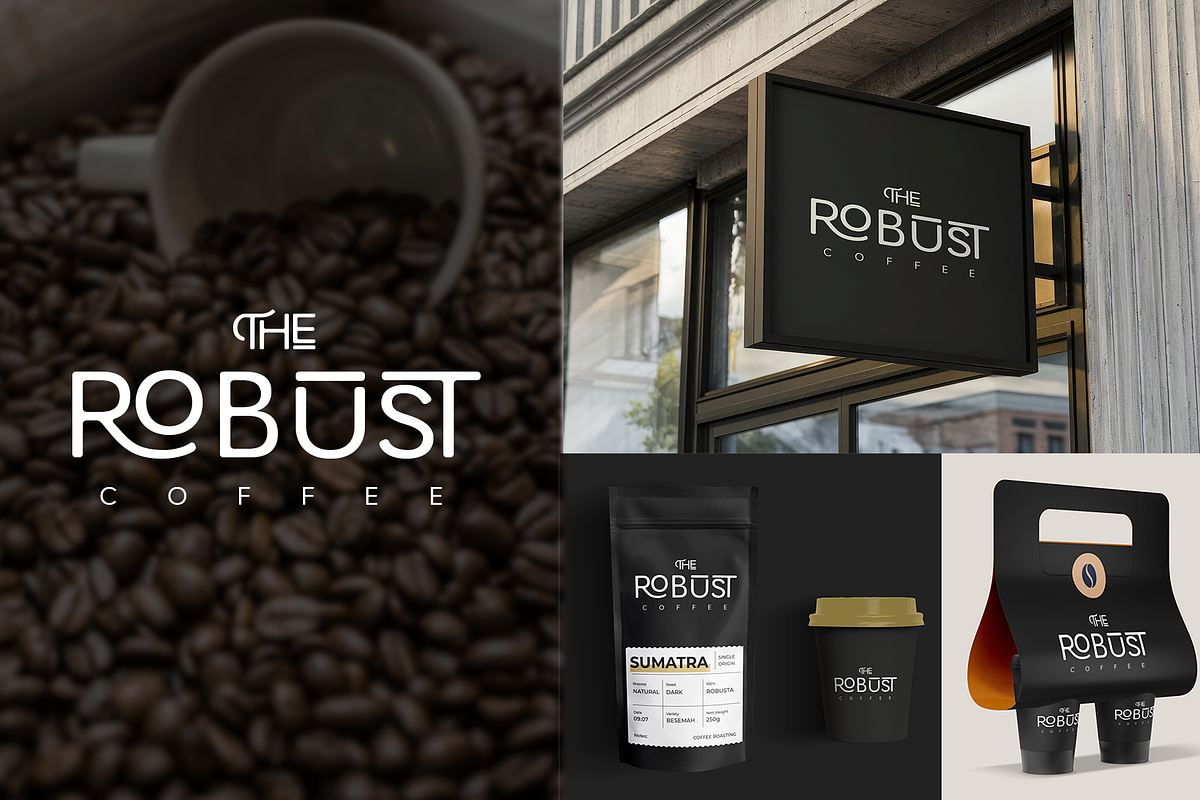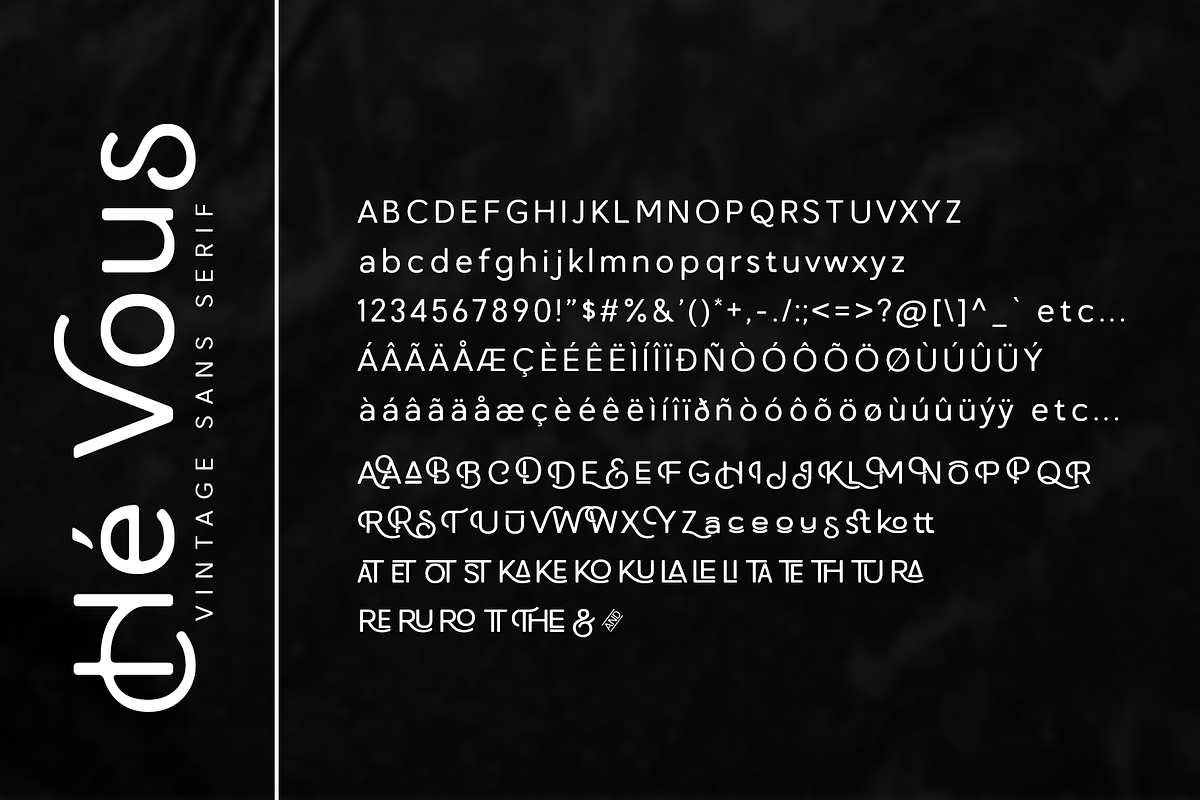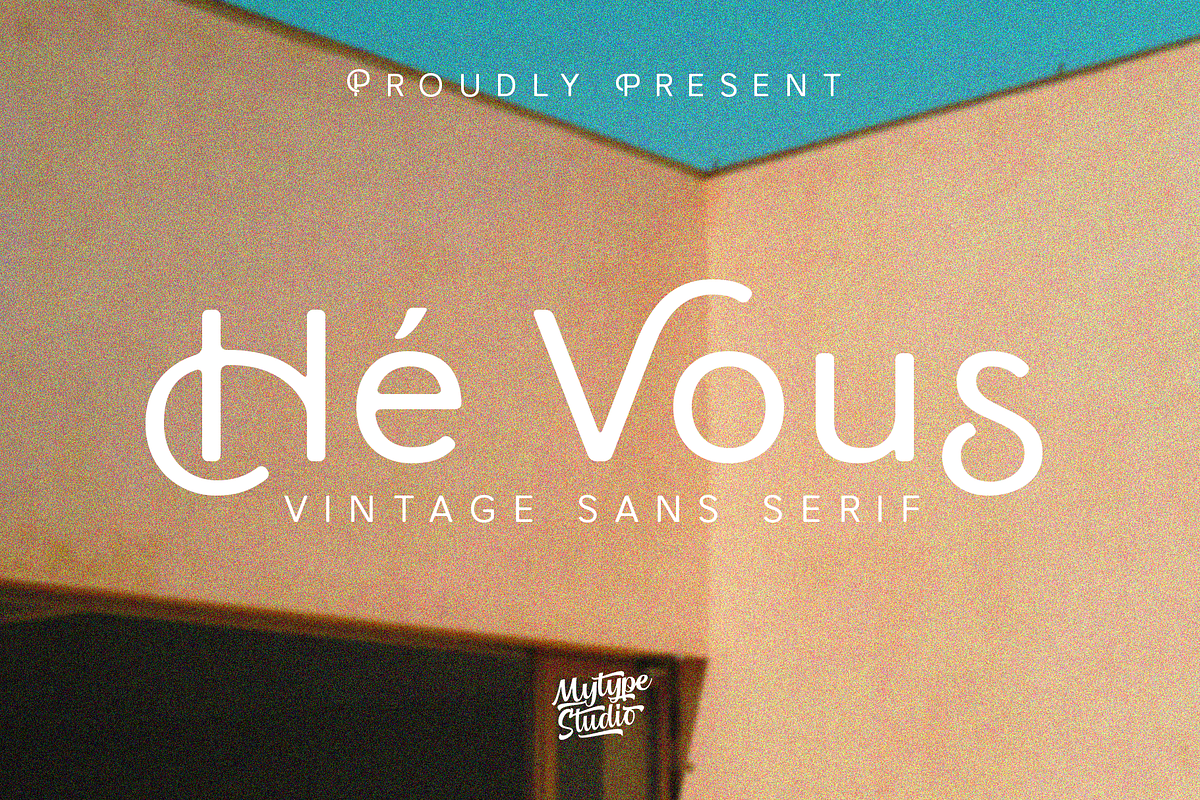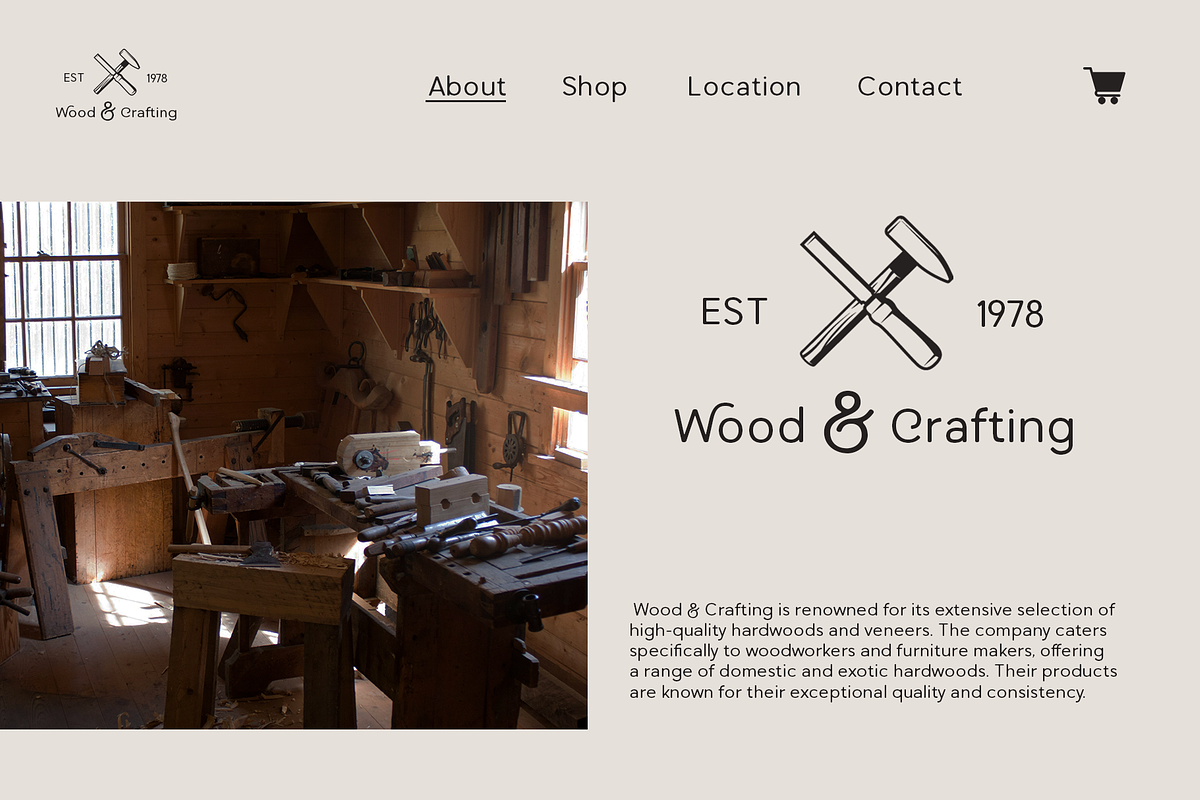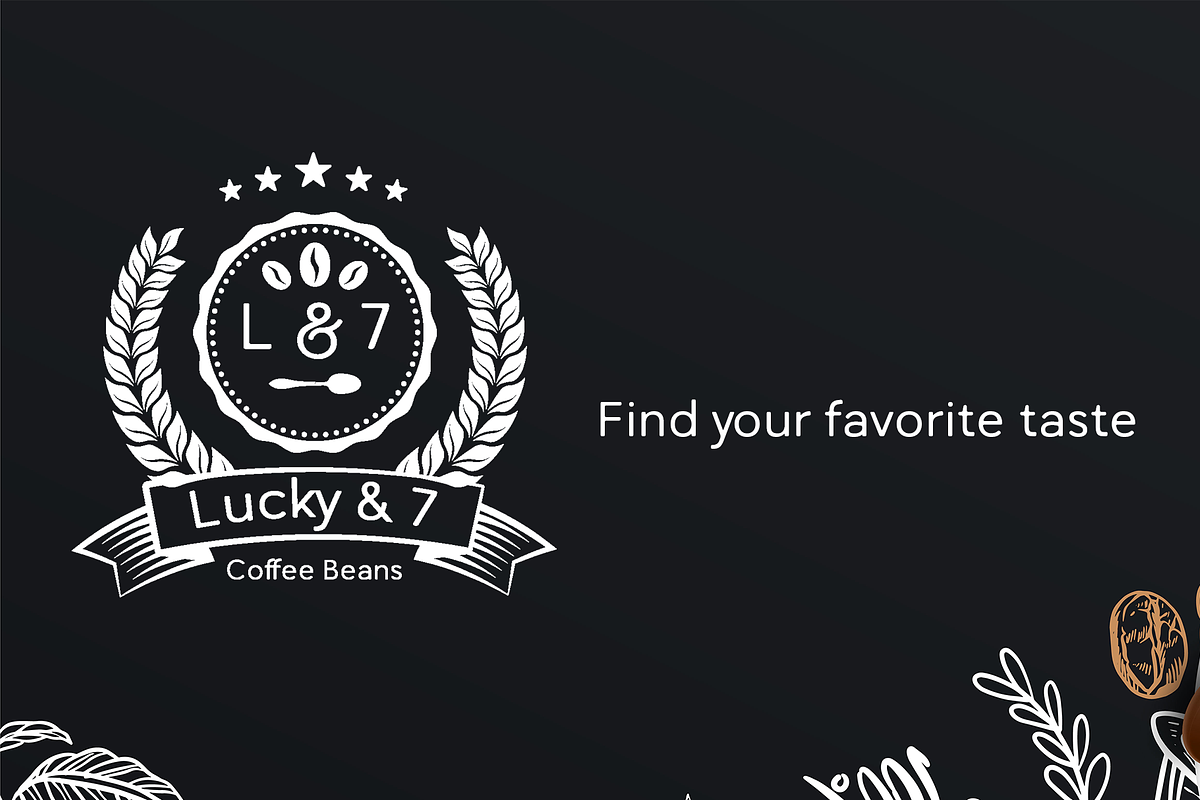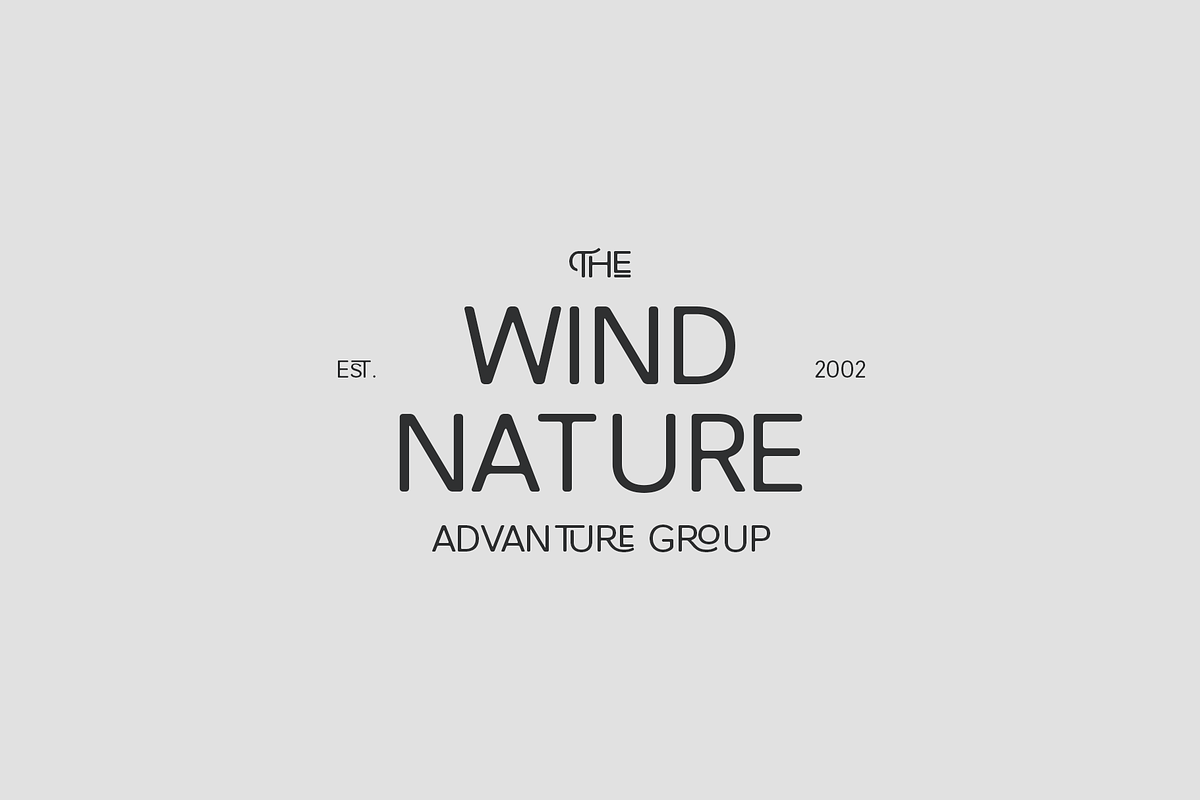
Hé Vous - Vintage Sans Serif Font
Hé Vous is a distinctive vintage sans serif font, designed to evoke a sense of nostalgia while maintaining a modern, clean aesthetic. Created by Mytype Studio, this font offers a unique blend of retro and contemporary vibes, making it perfect for a variety of design projects.
Design Characteristics:
Vintage Aesthetic: Hé Vous incorporates elements of vintage typography, with carefully crafted letterforms that reflect the elegance and charm of bygone eras.
Modern Simplicity: Despite its retro influence, the font retains a minimalist and clean look, ensuring it is versatile and suitable for modern design needs.
Unique Glyphs: The font features unique character shapes, such as the distinct "H" with an elongated crossbar and the stylized "é," adding personality and flair to your text.
High Legibility: With its well-defined and straightforward letterforms, Hé Vous ensures readability across various mediums and sizes, making it ideal for both headlines and body text.
Hé Vous is a versatile and stylish vintage sans serif font that brings together the best of both worlds: the charm of retro design and the clarity of modern typography. Whether you're looking to add a touch of nostalgia to your project or simply want a unique font with a distinctive personality, Hé Vous is an excellent choice.